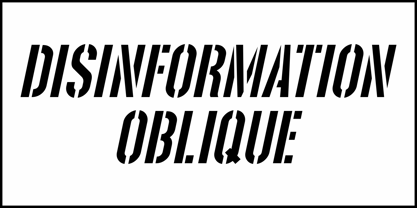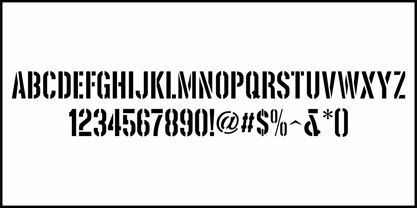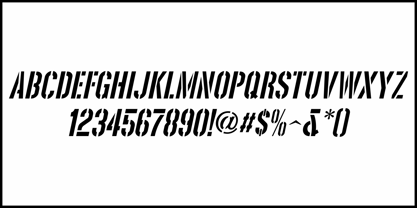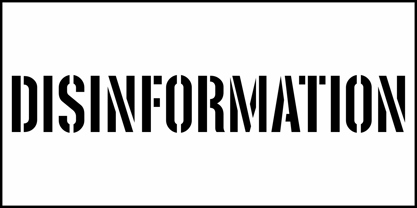
Disinformation JNL
In the January, 1962 issue of Photoplay magazine, a condensed sans stencil font was used in the article title "Blackmail-The Man Who is Trying to Take Liz Away from Eddie". (At the time, Elizabeth Taylor was married to Eddie Fisher and they were perfect fodder for the gossip columnists, fan magazines and tabloids.)
The digital version is now available as Disinformation JNL, in both regular and oblique versions.